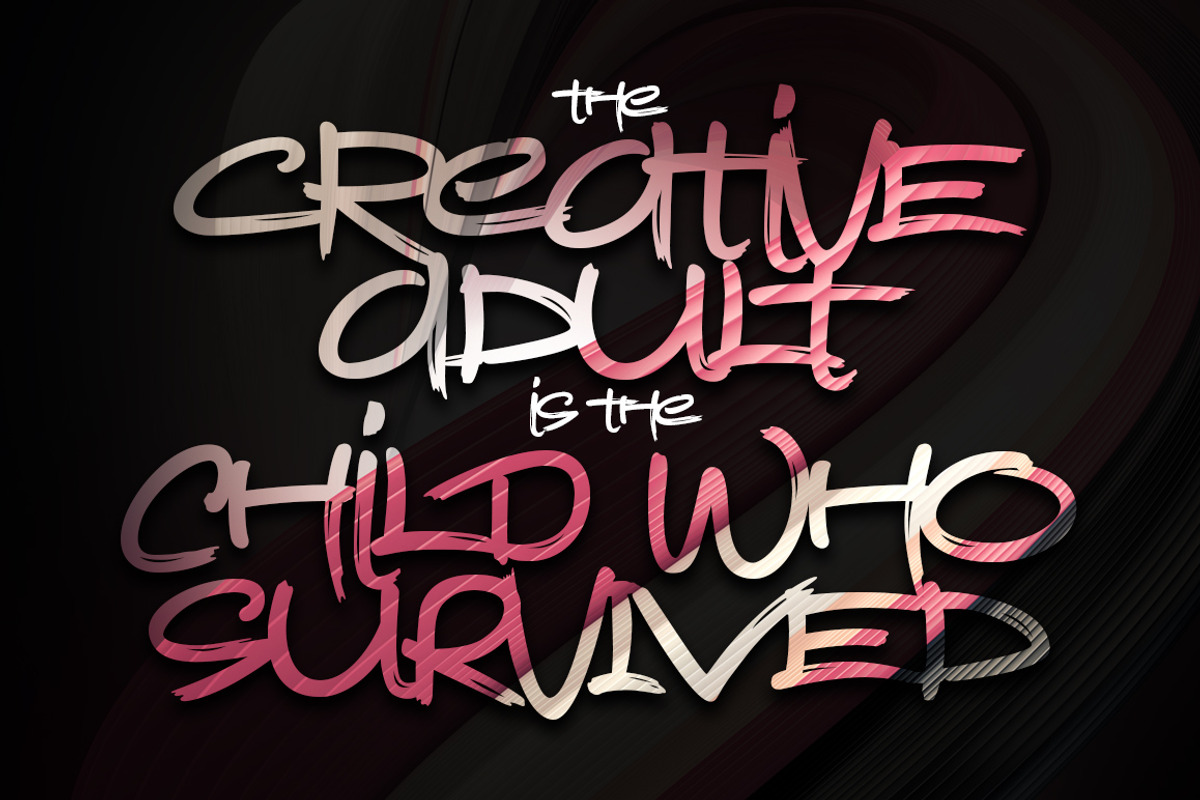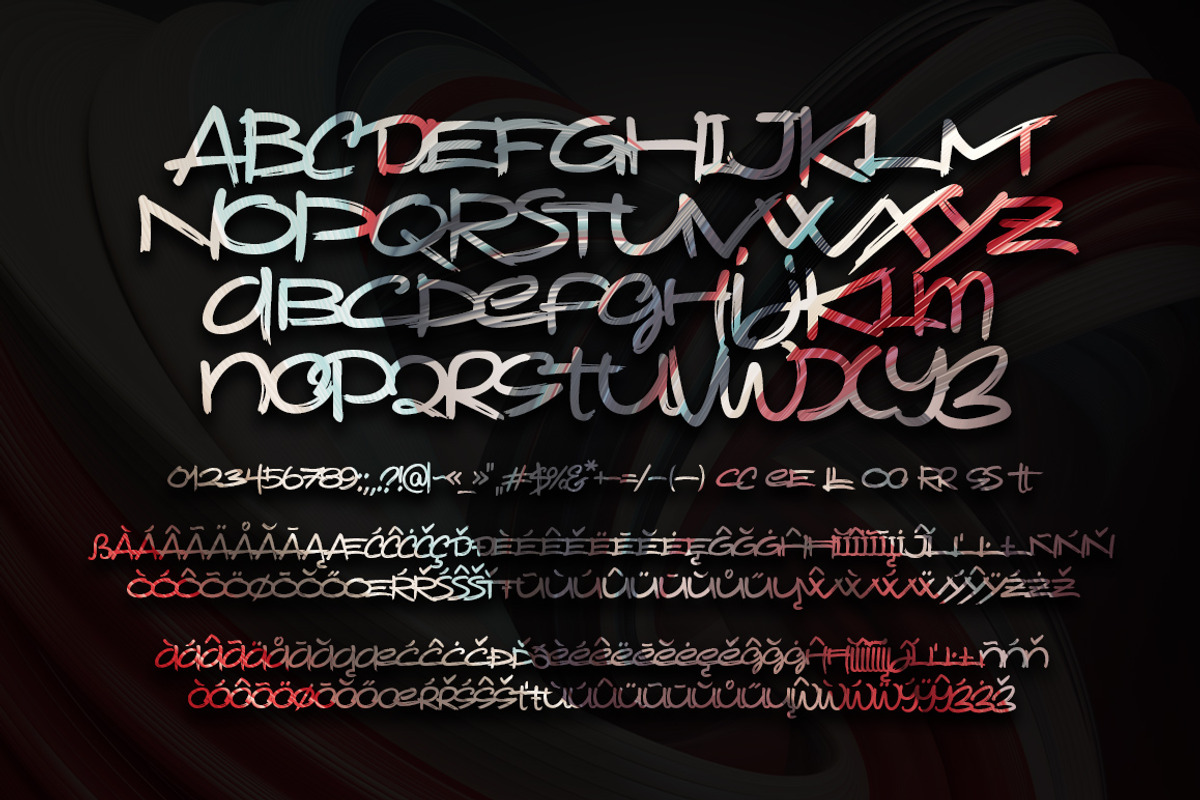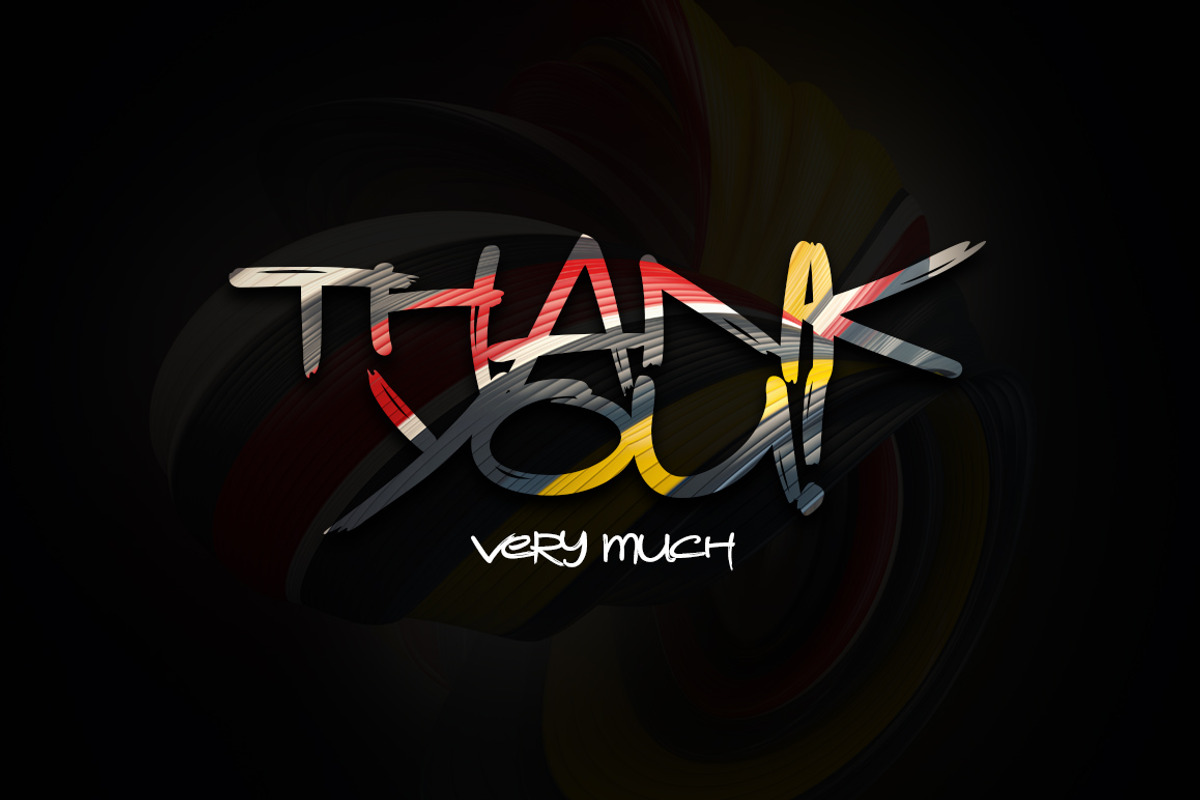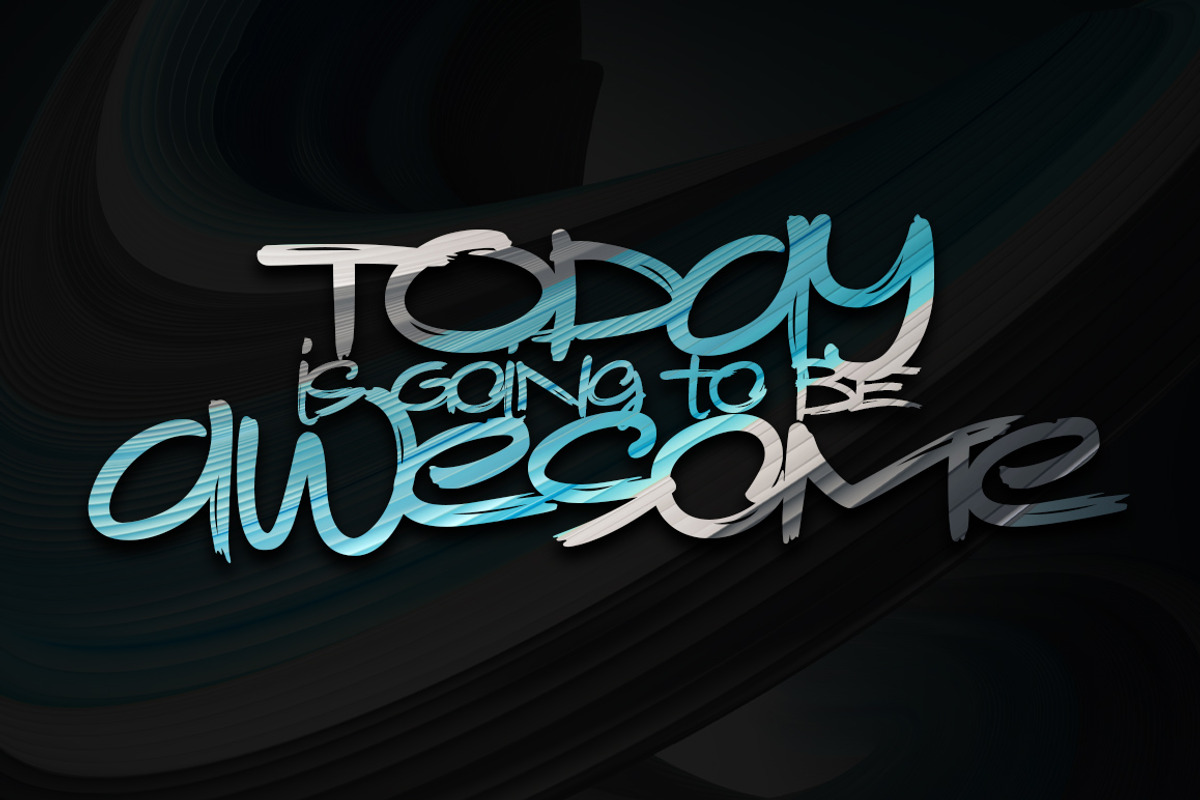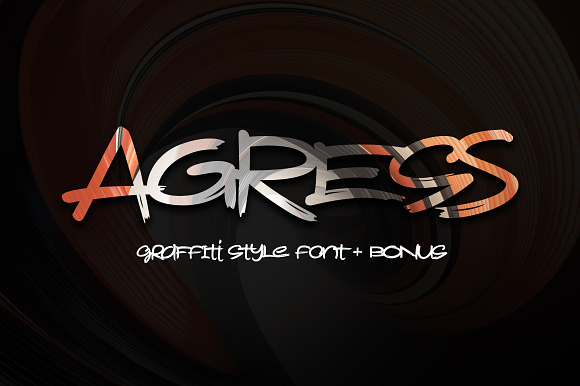
Agress Font + Bonus
Hello! Presenting a graffiti style font with multilingual support. It also includes a bonus graphics — 6 high resolution abstract images 6000x6000px in layered PSD format (JPG files are available too)
- Presenting a graffiti style font with multilingual support.
- Agress Regular
Agress Font + Bonus by Gleb Guralnyk fits naturally into Branding, posters, packaging, typography.